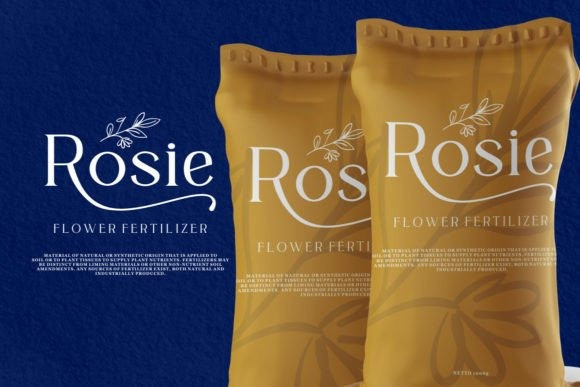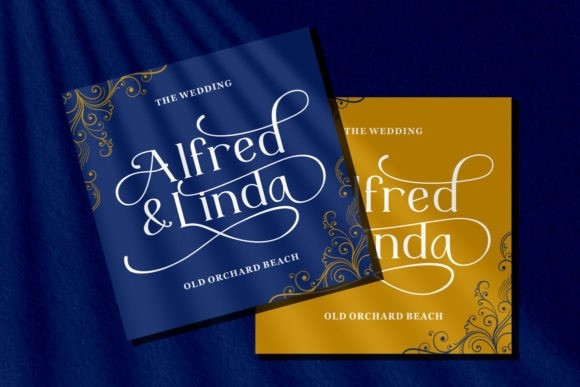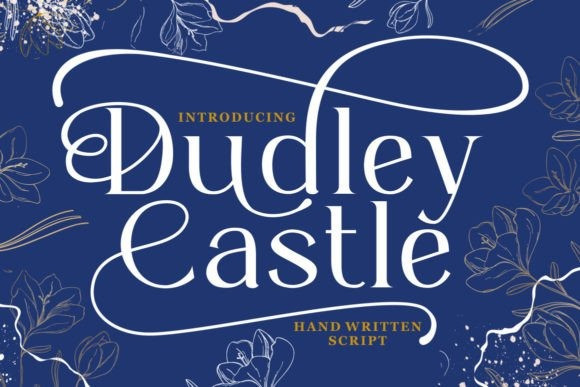
Dudley Castle Font
Dudley Castle Font – Hand Written Script Font is a beautifully crafted font with a hand-drawn script style that exudes elegance and luxury. Designed to resemble handwritten text, this font adds a personal touch and a sense of authenticity to your designs. With its abundance of alternative characters and flourishes, Dudley Castle offers versatility and allows for creative exploration. It is a perfect choice for titles, names, branding, headlines, logos, and various other design applications.
The hand-written script style of Dudley Castle brings a unique and personalized feel to your projects. It captures the essence of beautiful handwriting, giving your designs a human touch and an intimate connection. The font’s elegant and luxurious appearance elevates the visual appeal and adds a touch of sophistication to any text it is applied to. Whether you’re creating a title for a magazine, a name for a product, or a logo for a high-end brand, Dudley Castle will help you achieve a refined and stylish look.